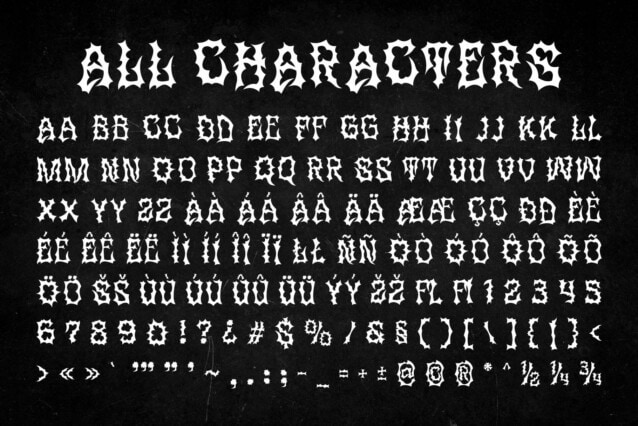
CS Moshe Font
CS Moshe Font is a Black Metal display font crafted to embody the raw, aggressive, and sinister essence of the extreme metal scene. With thorn-like letterforms, jagged edges, and chaotic structures, this font delivers a dark and powerful visual impact. Its root-like extensions and eerie, blood-dripped strokes create a sense of mysticism and brutality, making it the perfect typeface for bold, underground, and rebellious designs.